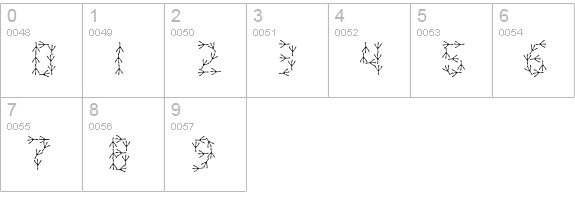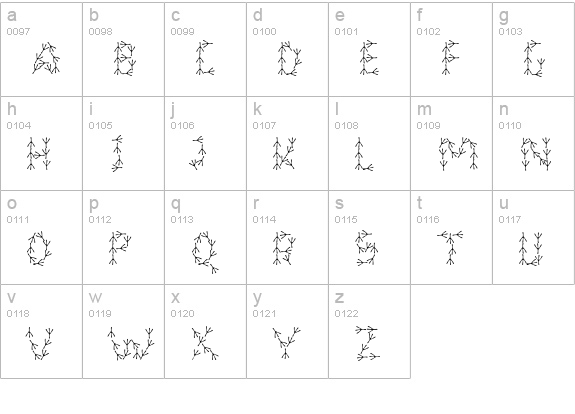
ForTheBirds Font Details
ForTheBirds font is a whimsical and elegant typeface that brings a touch of charm to any design project. Its delicate lines and graceful curves evoke a sense of playfulness and sophistication. Perfect for adding a unique flair to invitations, posters, logos, and more, ForTheBirds font is versatile and eye-catching. What sets ForTheBirds font apart is that it is completely free to download at FontsMarket.com. This means you can easily access this beautiful font without any cost, making it a valuable addition to your font collection. With its graceful design and easy accessibility, ForTheBirds font is sure to become a favorite choice for your creative endeavors.